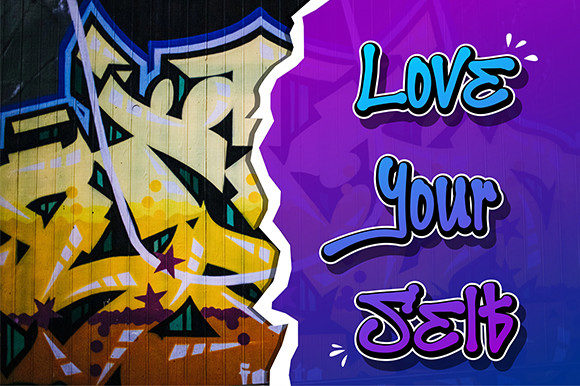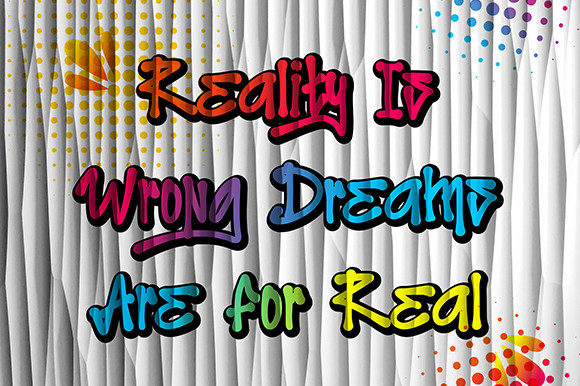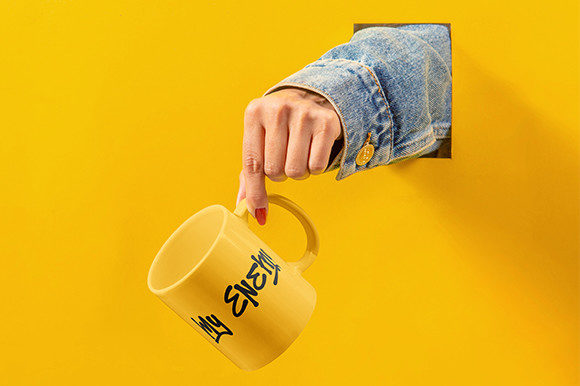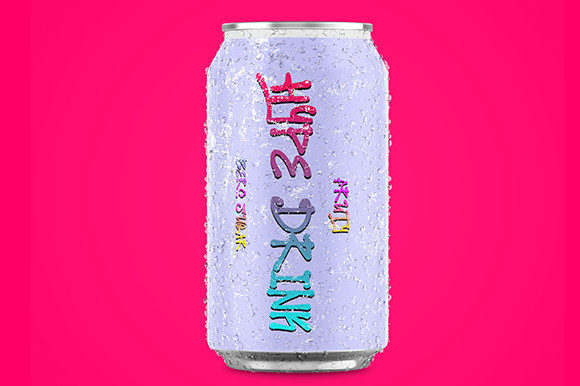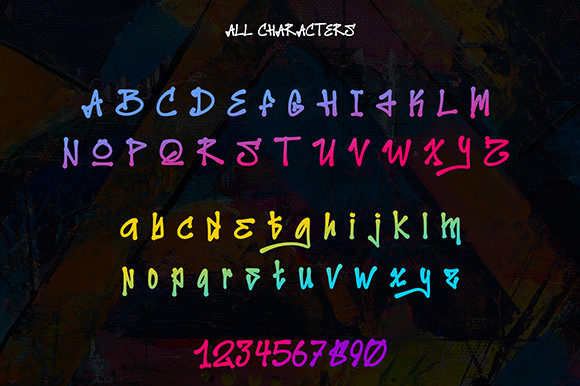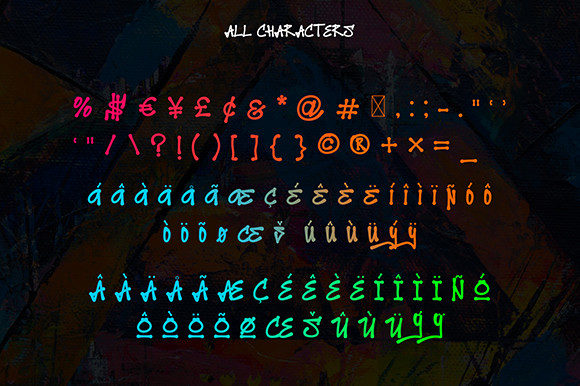
Introducing Hashira Font: The Ultimate Graffiti-Styled Display Font
Are you a designer or crafter looking for a font that can add a touch of street art vibe to your designs? Look no further than Hashira Font! This awesome, graffiti-styled display font is perfect for creating eye-catching designs that stand out from the crowd. In this article, we’ll take a closer look at Hashira Font and explore its features, benefits, and uses.
What is Hashira Font?
Hashira Font is a unique and stylish display font that is inspired by the urban street art scene. Its graffiti-styled letters are bold, colorful, and full of character, making it perfect for designs that require a bit of attitude and swagger. Whether you’re creating a logo, advertisement, or t-shirt design, Hashira Font is sure to make a statement.
Key Features of Hashira Font
• Graffiti-styled letters: Hashira Font features bold, colorful, and stylized letters that are reminiscent of urban street art.
• Street art vibe: This font has a distinct street art vibe that is perfect for designs that require a bit of edge and attitude.
• Display font: Hashira Font is a display font, making it perfect for headlines, titles, and other large-format text.
• Highly versatile: This font can be used for a wide range of designs, including t-shirts, sportswear, logos, advertisements, clothing, and more.
Benefits of Using Hashira Font
So why should you choose Hashira Font for your next design project? Here are just a few benefits of using this awesome font:
• Adds a touch of street art vibe: Hashira Font can add a unique and stylish touch to your designs, setting them apart from the crowd.
• Highly readable: Despite its bold and stylized letters, Hashira Font is highly readable, even at large sizes.
• Versatile: Hashira Font can be used for a wide range of designs, from logos and advertisements to t-shirts and sportswear.
Uses for Hashira Font
So what can you use Hashira Font for? The possibilities are endless! Here are a few ideas to get you started:
• T-shirts and apparel: Hashira Font is perfect for creating eye-catching t-shirt designs that stand out from the crowd.
• Logos and branding: This font can be used to create bold and memorable logos that reflect your brand’s personality.
• Advertisements: Hashira Font can add a touch of street art vibe to your advertisements, making them more eye-catching and engaging.
• Sportswear and accessories: This font is perfect for creating stylish and sporty designs for sportswear and accessories.
• Clothing and fashion: Hashira Font can be used to create bold and fashionable designs for clothing and fashion brands.
Tips for Using Hashira Font
Here are a few tips for getting the most out of Hashira Font:
• Use it sparingly: Hashira Font is a bold and stylized font, so it’s best to use it sparingly to avoid overwhelming your design.
• Pair it with other fonts: This font can be paired with other fonts to create a unique and stylish contrast.
• Experiment with colors: Hashira Font can be used with a wide range of colors, so don’t be afraid to experiment and find the perfect combination for your design.
In conclusion, Hashira Font is an awesome, graffiti-styled display font that is perfect for designers and crafters looking to add a touch of street art vibe to their designs. With its bold and stylized letters, highly readable design, and versatility, Hashira Font is sure to become a go-to font for anyone looking to create eye-catching designs. So why wait? Download Hashira Font today and start creating your own unique and stylish designs!